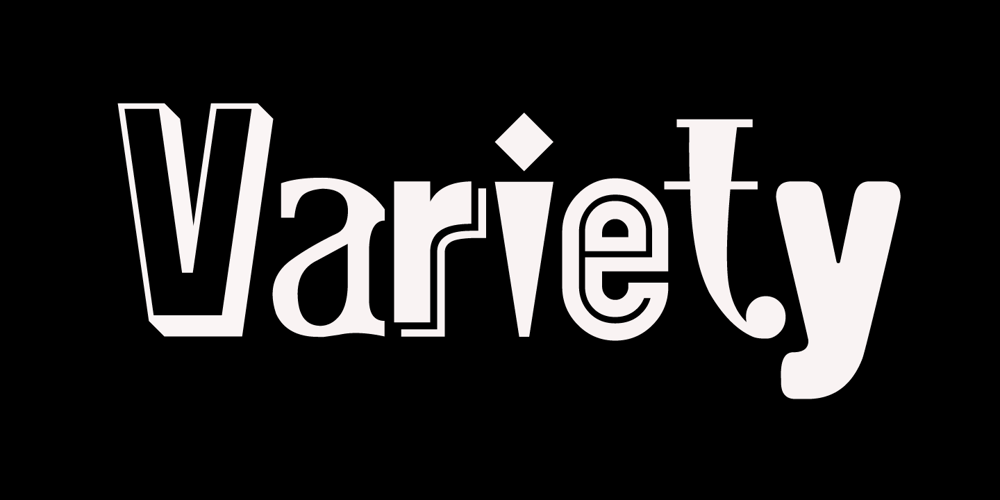
Variety
Variety font
Variety Font Family was designed by Keith Tricker and published by Studio K. Variety contains 2 styles and family package options. Now that there are more Studio K fonts than there are characters in the alphabet it occured to me that I should produce a sampler font that showcased them all: hence Variety. The ‘What the font’ experts amongst you should enjoy identifying individual characters, but to start you off, the featured fonts in the font title are, in order of appearance: Alma Mater Outline Shadow, Aspidistra, Signpost, Cafe de Paris, Showbiz, Barrowboy and Soft Rock.